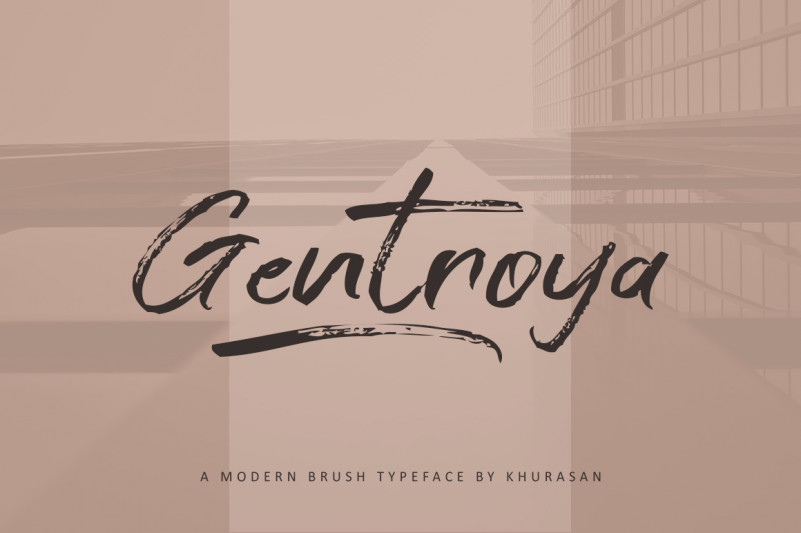
Gentroya Font
The Gentroya is a fresh handwritten script font, elegant and modern feel character set. The Gentroya font includes a full set capital and lowercase letters, as well as multi-lingual support, swashes, numerals, & punctuation.